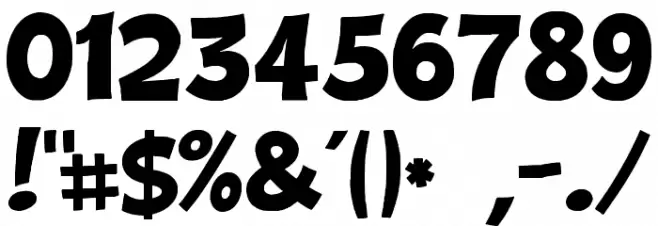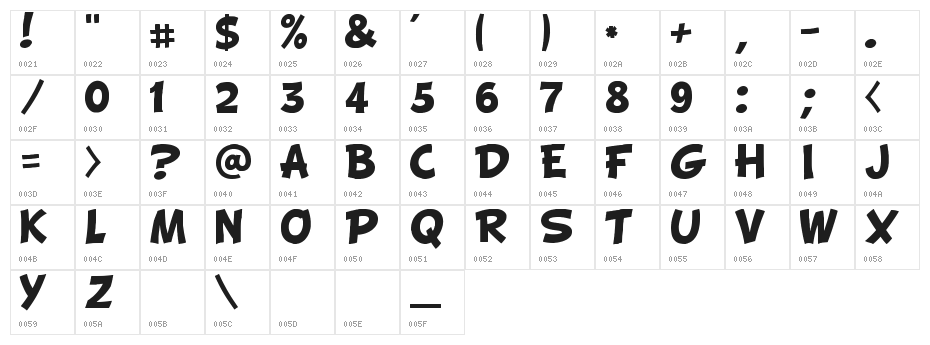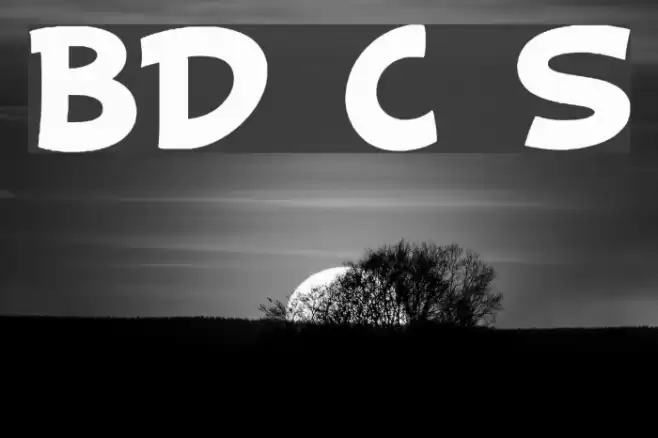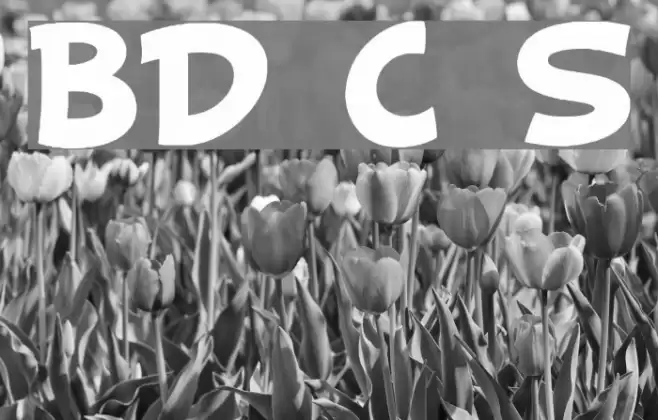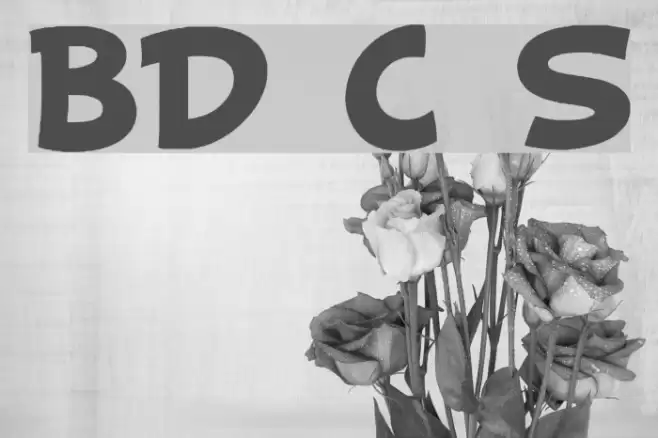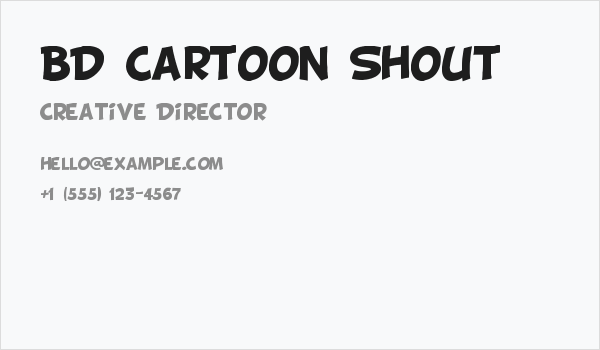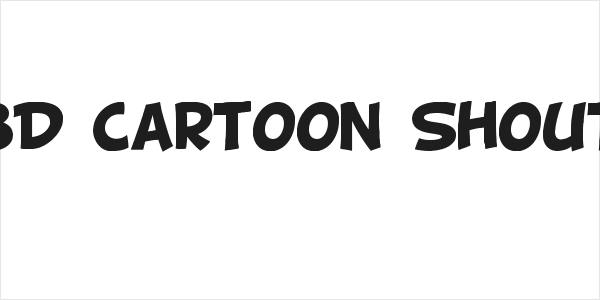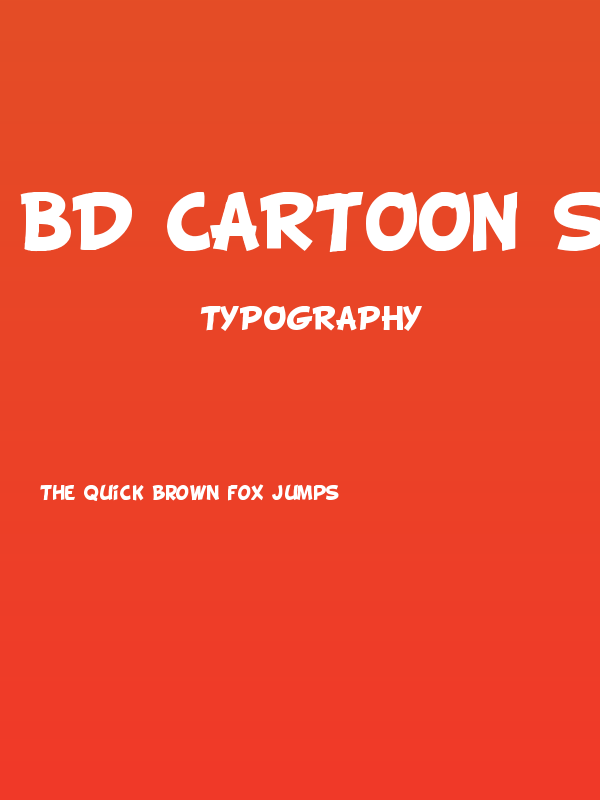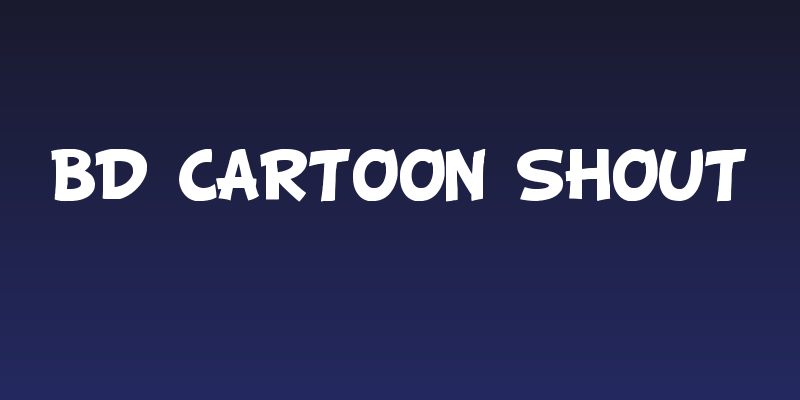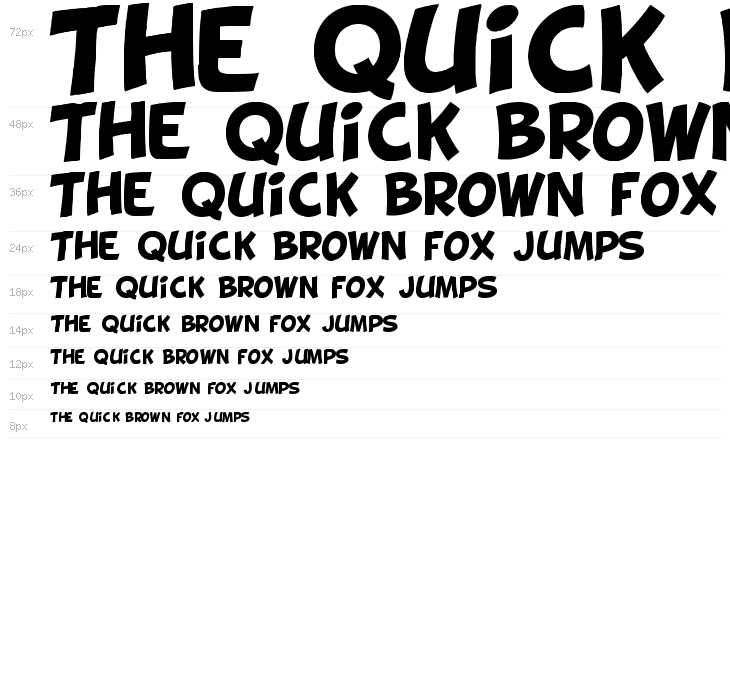
BD Cartoon Shout Font
BD Cartoon Shout Description
This playful and bold font features exaggerated, cartoon-like characters that convey a sense of fun and energy. The letters are slightly irregular, with varying stroke widths that add to its whimsical charm. The uppercase and lowercase letters maintain a consistent style, with rounded edges and a slight tilt that gives a dynamic, animated feel. The numbers and special characters are equally bold and expressive, making them stand out in any design. This font is perfect for projects that require a lively and informal touch, such as children's books, comic strips, or playful branding.
| Overall Style | Playful, Animated |
| Proposed Projects | Ideal for children's books, comic strips, playful branding, and animated graphics. |